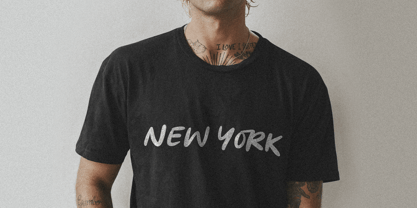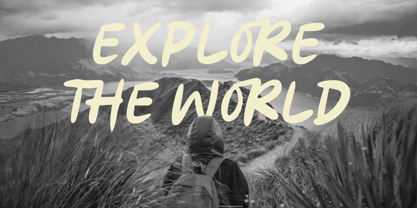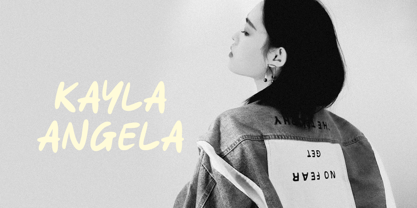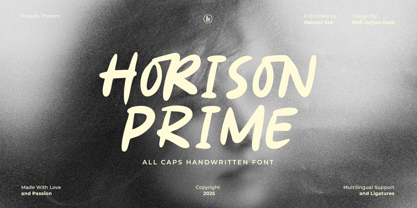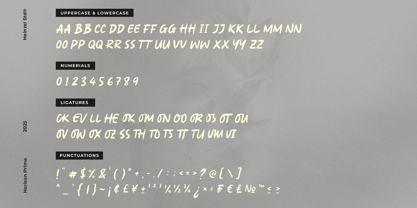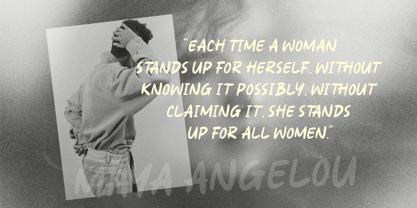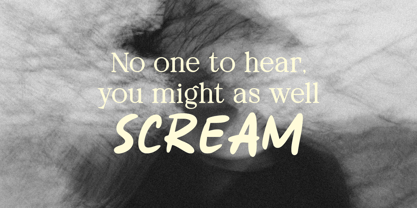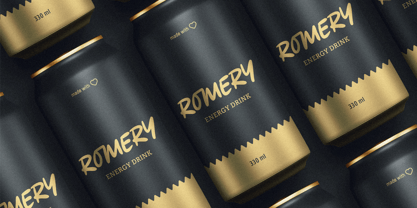
Horison Prime
by Heinzel Std
The Horison Prime Font Family was designed by Nofi Sofyan Hadi and published by Heinzel Std. Horison Prime contains 1 styles.
Horison Prime is a bold and stylish all-caps handwritten font designed to add a personal, handcrafted touch to your creative projects. With smooth organic strokes and a modern casual vibe, this font is perfect for branding, logos, posters, packaging, social media, and editorial design. Its eye-catching letterforms bring energy and authenticity to your work, while multilingual support and ligatures ensure seamless usability across various languages and layouts.
Ideal for designers, creatives, and brands seeking a unique handwritten look, Horison Prime offers a versatile typeface that stands out in both print and digital media. Elevate your designs with the natural charm and expressive personality of Horison Prime.
Designers: Nofi Sofyan Hadi
Publisher: Heinzel Std
Foundry: Heinzel Std
Design Owner: Heinzel Std